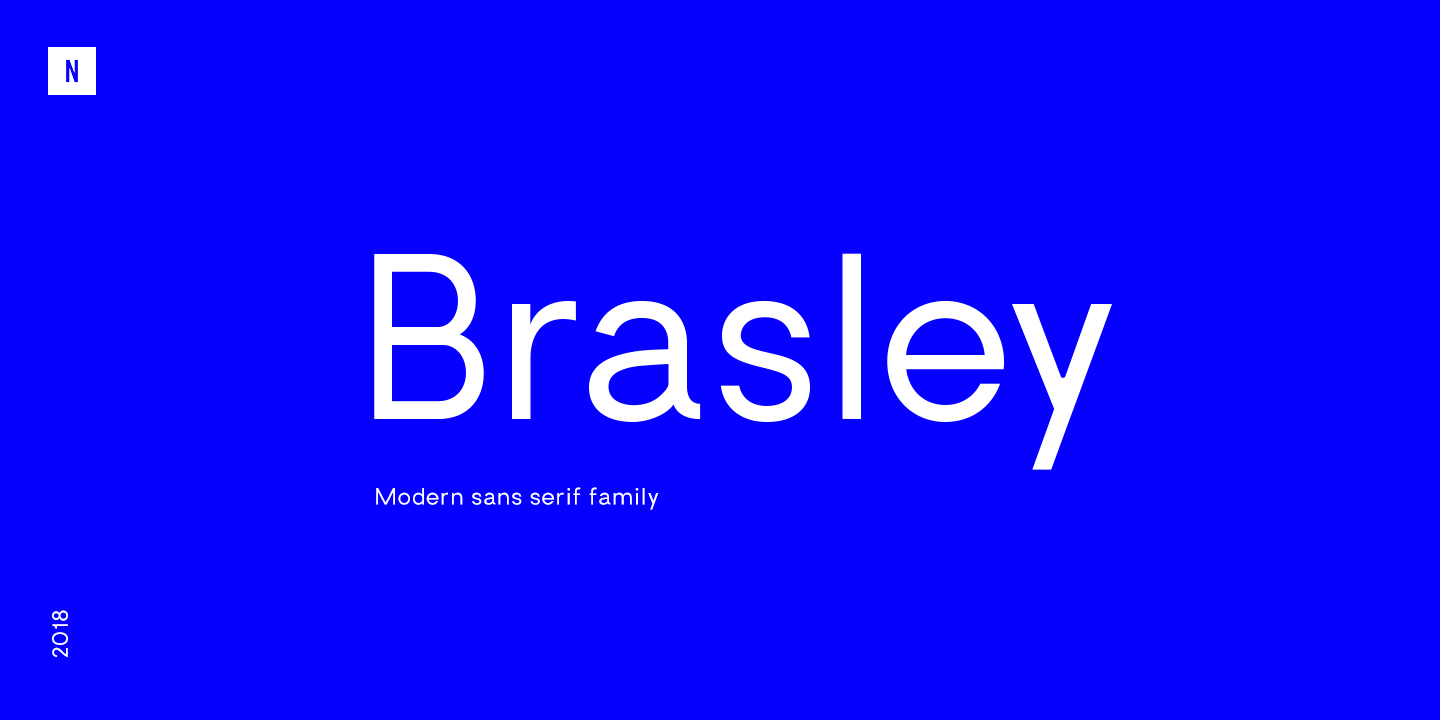
The Brasley Font excels in bold advertising campaigns, confident brand identities, assertive marketing materials, strong corporate communications, powerful headline designs, dynamic poster campaigns, commanding signage systems, and impactful design applications that require unwavering confidence with assertive character and commanding presence.
What makes the Brasley Font Free Download so exciting is its exceptional ability to project uncompromising confidence and bold leadership through typography that embodies strength, determination, and the assertive energy needed to command attention in competitive markets. This typeface features robust letterforms with commanding characteristics that suggest authority, reliability, and the bold confidence that defines successful brands and powerful communications. Its assertive aesthetic speaks to audiences who appreciate strong leadership and decisive action, making it perfect for corporate brands, leadership organizations, and confident service providers requiring typography that projects unwavering authority and bold sophistication.
The Brasley Font family encompasses powerful weight variations from Regular to Black, each maintaining the font's signature confident character and assertive appeal. The collection includes Bold and Heavy styles with enhanced strength characteristics that reinforce the font's commanding presence and leadership authority. This confident font system ensures corporate leaders and assertive brands have access to typography that conveys genuine strength while creating immediate connection to concepts of bold leadership, confident decision-making, and assertive business excellence.
Perfect for corporate consulting firms, leadership development organizations, assertive marketing agencies, and creative professionals working on projects that must project confidence and commanding authority. The font's bold appeal makes it invaluable for corporate marketers, leadership coaches, and business professionals developing communications that must inspire confidence and assertive action. Download Brasley Font Free Download today and command typographic authority with this exceptional typeface that leads with bold confidence while delivering assertive sophistication and commanding presence for powerful business communications.